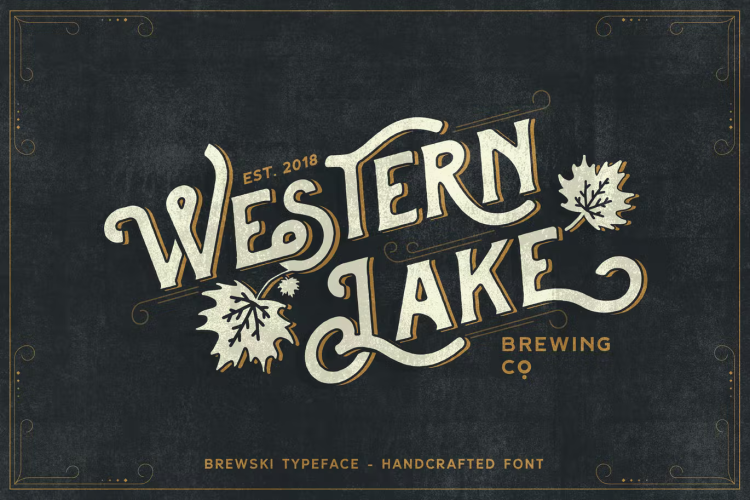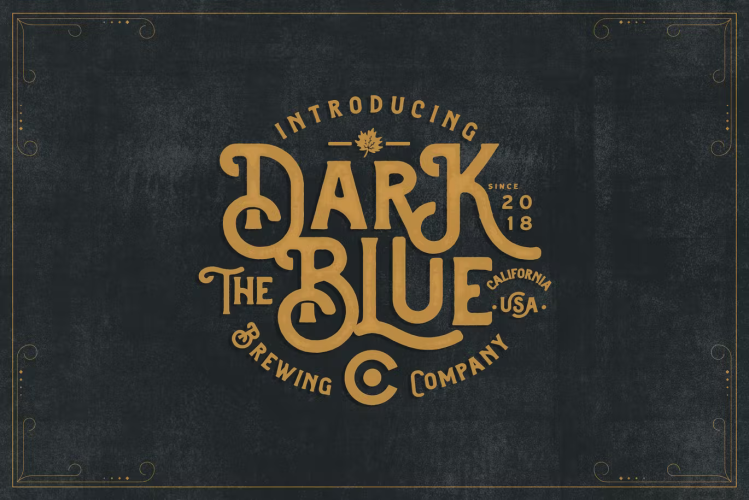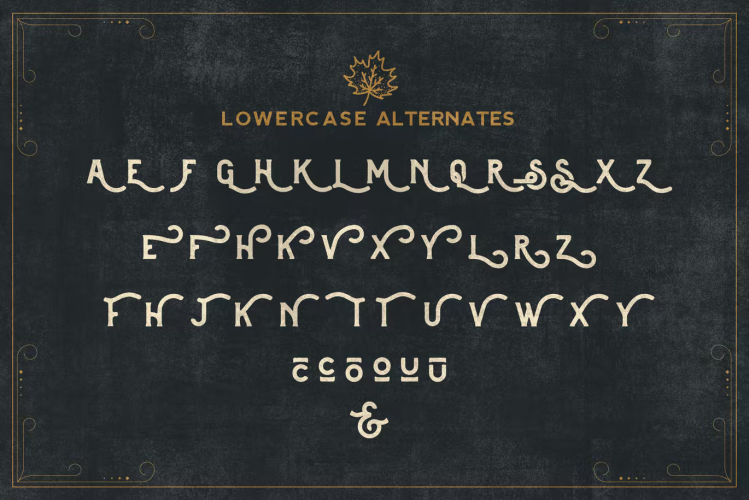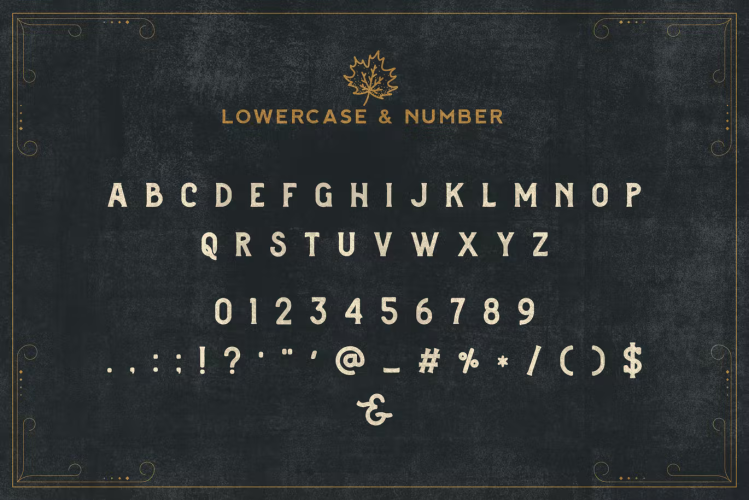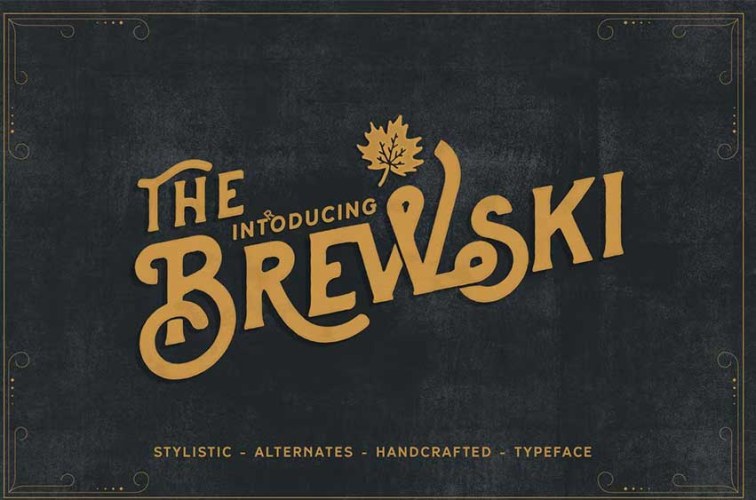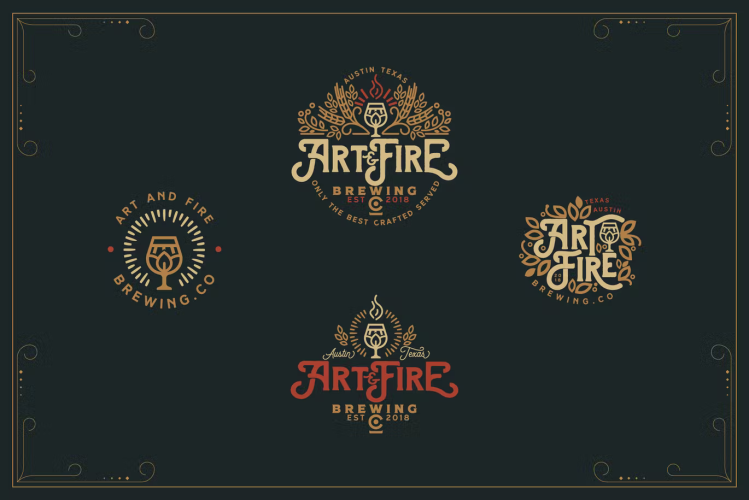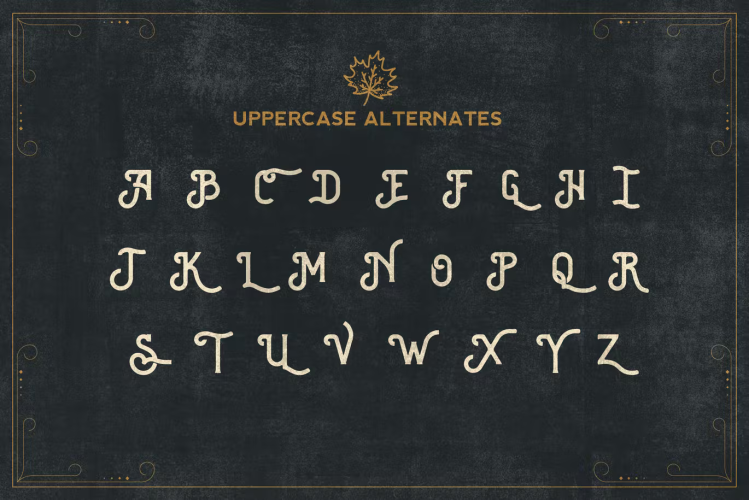
Brewski Font
Brewski Font is a display serif font with hand-drawn Vintage style, and a touch of ornament makes this font look stylish. Inspired by vintage Brewery packaging and Beer…
Brewski Font is a display serif font with hand-drawn Vintage style, and a touch of ornament makes this font look stylish. Inspired by vintage Brewery packaging and Beer advertising from the early 20th century. It is perfect for vintage logo design, headlines, or packaging design. Brewski was designed with Stylistic Alternates and Contextual Alternate in some characters that allow you to mix and match pairs of letters to fit your design. This font is good for vintage design, t-shirts, logos, labels, posters and etc.
Where Brewski Font works best
Brewski Font gives long-form text a classic, trustworthy rhythm — ideal for magazine spreads, annual reports and book interiors.
Pair Brewski Font with generous letter-spacing for wordmarks in fashion, hospitality, wine and jewellery branding.
Use Brewski Font for slide titles in Keynote, PowerPoint or Google Slides to add authority without looking dated.
What is Brewski Font good for?
Brewski Font is a Serif Fonts typeface tagged Branding, Display, Handwritten, Packaging. It works well for headlines, logos, posters, social media graphics and branding projects that need a distinctive serif fonts look.